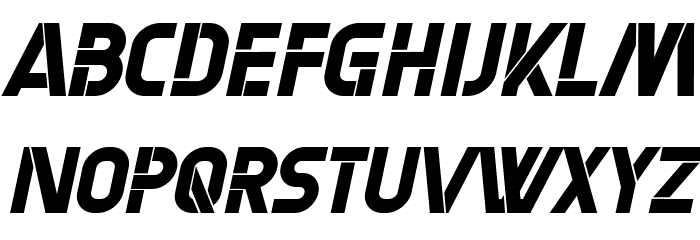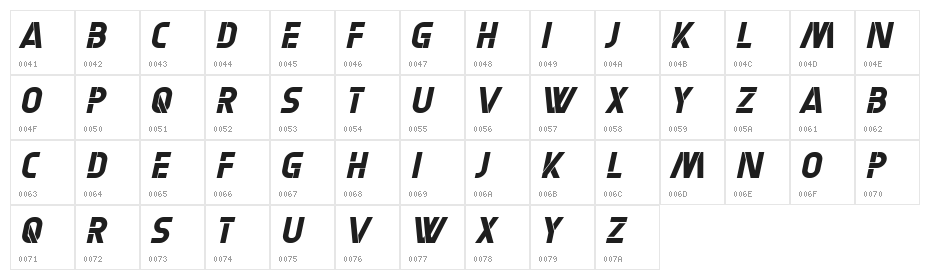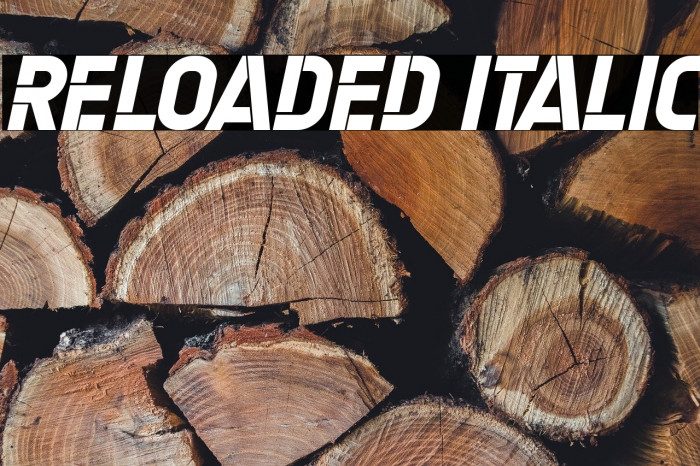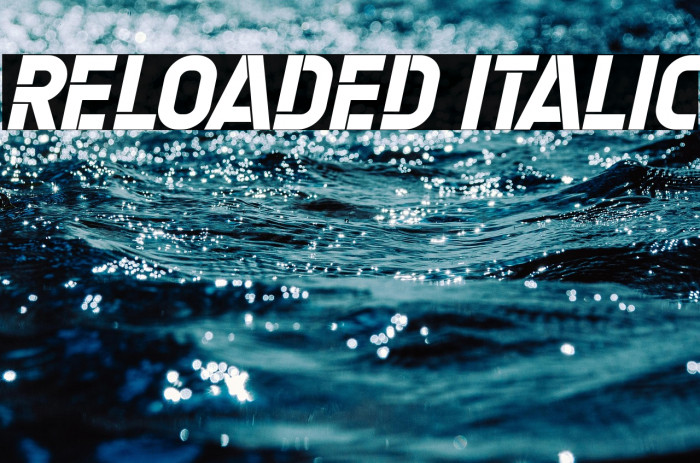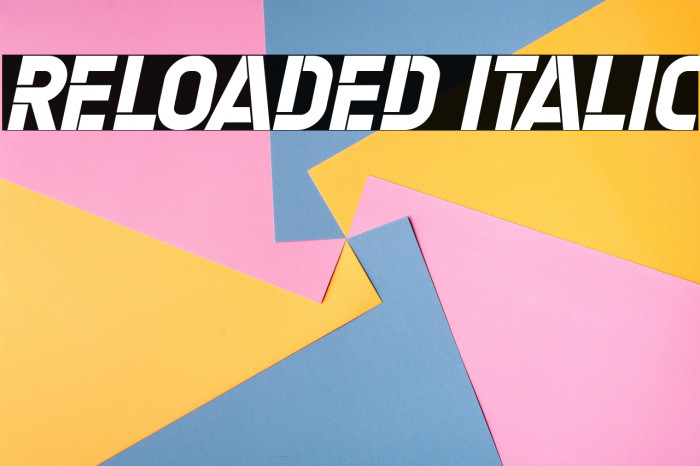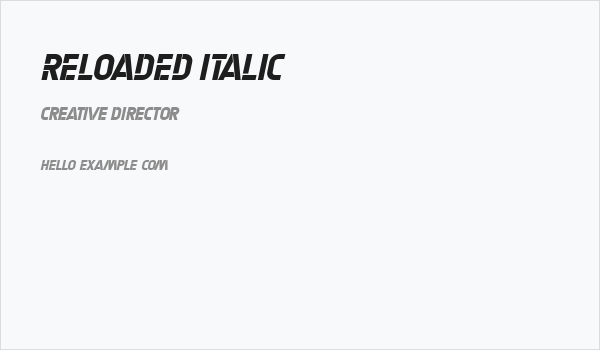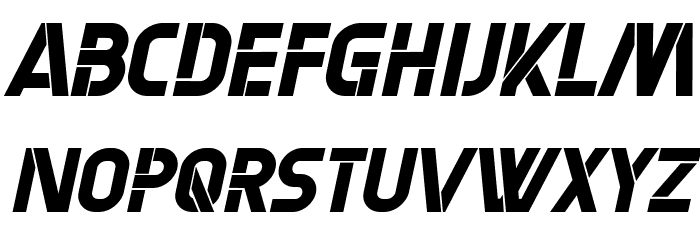
Reloaded Italic Font
Reloaded Italic Description
This font features a bold, italicized style with a modern and dynamic appearance. The characters are sharply angled, giving a sense of movement and energy. The strokes are thick and consistent, providing a strong visual impact. The design incorporates unique cut-out elements within certain letters, adding a futuristic and edgy feel. This font is highly legible and stands out due to its distinctive geometric shapes and slanted orientation.
Proposed ProjectsIdeal for sports branding, tech company logos, dynamic posters, and modern advertising campaigns.